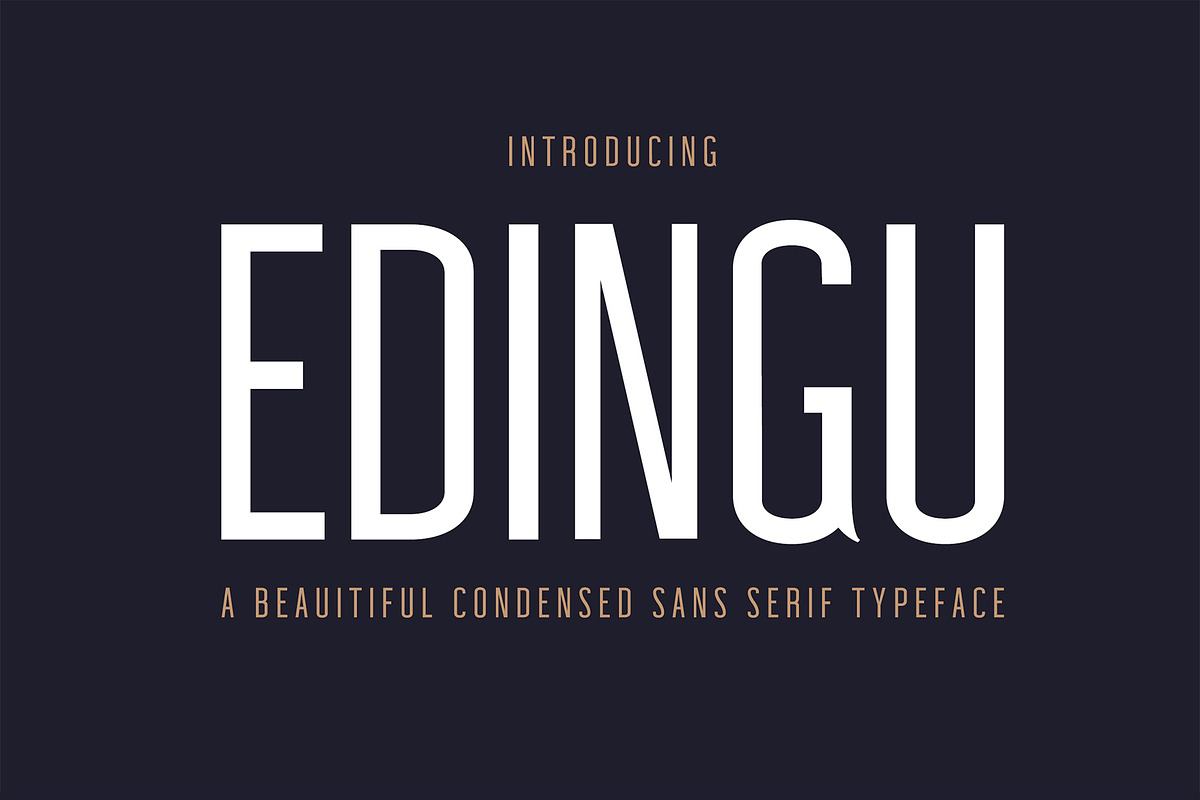
Edingu Sans Serif Font Family Free Download is a modern, versatile typeface collection designed to bring clarity, professionalism, and subtle elegance to any design. With multiple weights and styles included, Edingu is perfect for branding, corporate identities, editorial layouts, web design, presentations, and user interfaces.
Its clean, geometric letterforms and excellent legibility make it ideal for both headlines and body text. Whether you're building a minimalistic logo, a tech-forward website, or sophisticated print collateral, Edingu adapts with ease and precision.
Designers love Edingu for its functionality, visual harmony, and seamless performance across both digital and print platforms. Want a smart, clean font family that works anywhere? Download Edingu Sans Serif Font Family Free Download and give your projects a polished, contemporary voice.